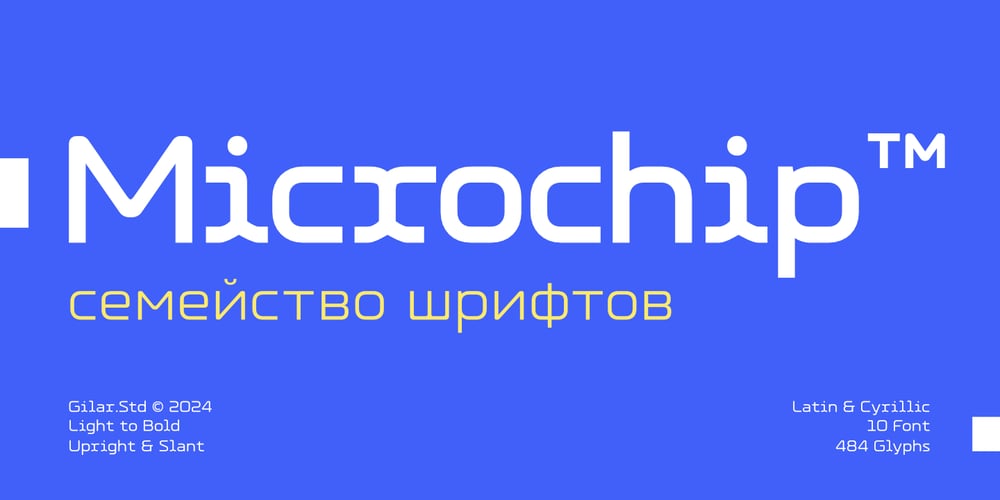
Microchip
Microchip font
Microchip Font Family was designed by Gumilar Pratama Adiatna and published by Gilar Studio. Microchip contains 10 styles and family package options. Microchip Font FamilyMicrochip is a monospaced font family with a futuristic theme, meticulously crafted to offer a sleek, modern aesthetic. The family consists of 10 distinct fonts, featuring 5 weights ranging from Light to Bold and 5 corresponding slants. This extensive range ensures versatility and precision for a wide array of design applications.Supporting over 97 languages, including both Latin and Cyrillic scripts, Microchip is an ideal choice for global projects. This expansive linguistic support allows for seamless integration in multilingual environments, making it perfect for international use.The unique design of certain characters, such as ‘i’, ‘l’, “r”,and ‘f’, sets Microchip apart, giving it a distinctive and innovative look. These characters have been thoughtfully designed to provide a unique flair, enhancing the overall futuristic feel of the font.Microchip also includes several advanced typographic features to enhance its functionality and versatility: Alternates (aalt): Provides alternative character designs for stylistic variation. Ligatures (liga): Automatically replaces specific character pairs with designed ligatures for better readability and aesthetics. Fractions (frac): Allows for easy creation of fractions. Ordinals (ordn): Formats ordinal numbers correctly. Historical Forms (hist): Offers historical letterforms for a classical touch. Localized Forms (locl): Adapts characters to specific language conventions. Stylistic Alternates (salt): Provides stylistic alternate characters for creative flexibility. Superscripts (sups): Enables the use of superscript characters for notations. With Microchip, you get a font family that is not only visually striking but also highly functional, designed to meet the demands of contemporary digital and print design. Whether for coding, user interfaces, or graphic design, Microchip delivers a polished, professional look with a futuristic edge.